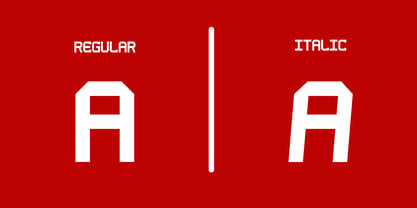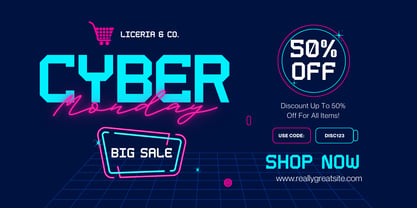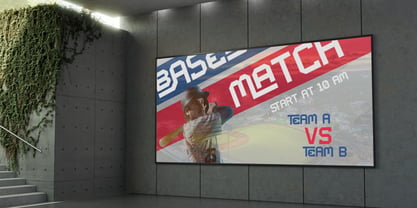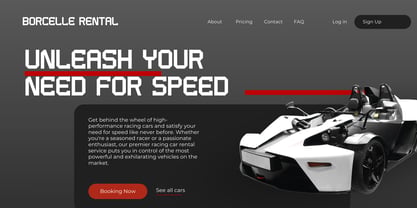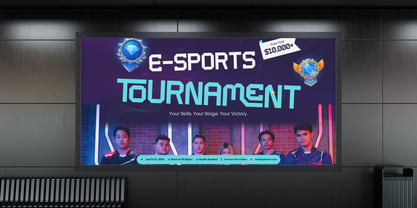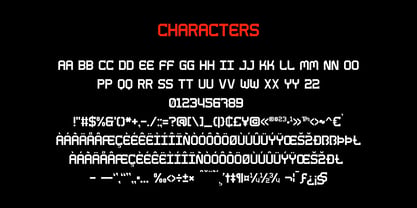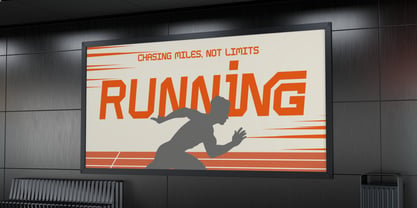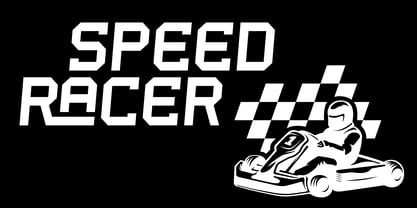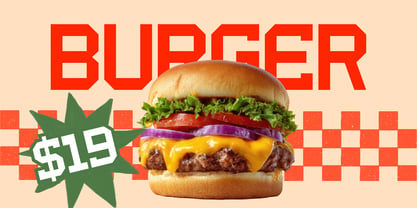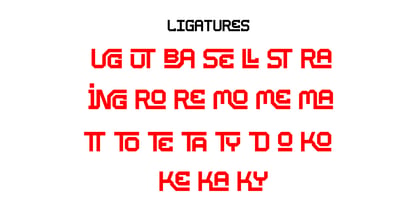
Dugout is a bold and wide baseball typeface inspired by classic dugout signage, vintage stadium lettering, and professional team branding. It captures the powerful and confident spirit of baseball through strong block shapes, solid curves, and an unmistakable athletic presence. Designed for logos, posters, headlines, packaging, advertising, social media graphics, and sports-themed visual identities, Dugout delivers a clean and impactful look that works perfectly for both modern and retro design styles. The Regular style provides a strong and stable foundation, ideal for bold typography and brand marks, while the Italic version adds motion, speed, and dynamic energy — making it perfect for action-driven layouts and expressive compositions. Whether you’re building a professional sports logo, a retro-inspired project, or a powerful graphic identity, Dugout gives your design the authentic look of real baseball typography. Add Dugout to your font library and bring bold baseball energy to every project.